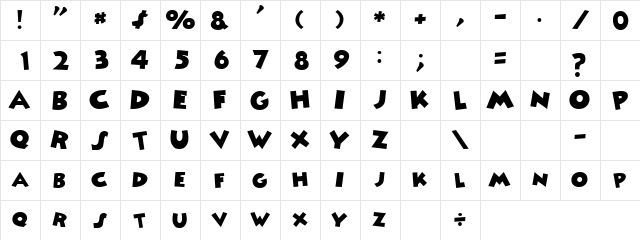
Disney Minnie Regular
Design Context for Disney Minnie Typeface
Disney Minnie is a composed and adaptable typeface that performs quietly and consistently across a wide range of design contexts.
Pro Tip: Use Disney Minnie in both headline and body roles to test its range before committing to a single application.